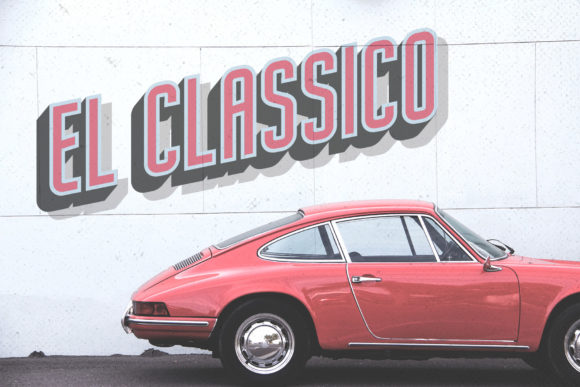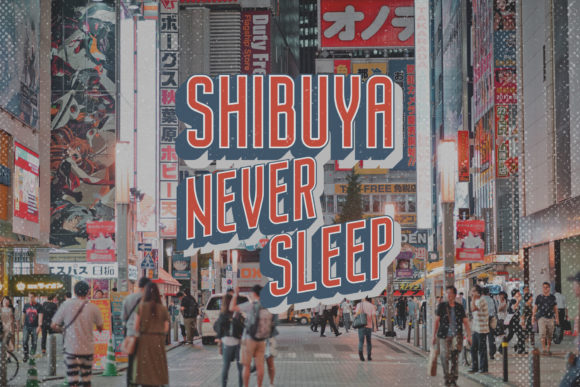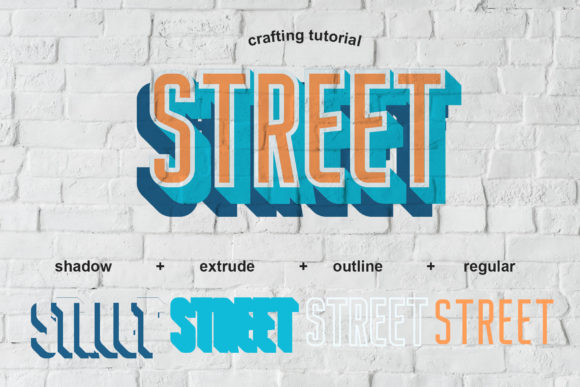
Introduction to Nordin Extrude Family Font
The Nordin Extrude is am amazing sans serif font family.
It includes 7 layerable variations for chromatic use It’s the result of an exploration of retro American and European bold sans serif lettering for advertising.
Nordin Extrude Family Font offers exceptional quality and versatility, making it a valuable addition to your design toolkit. Whether you’re creating for personal projects or commercial use, Nordin Extrude Family Font delivers professional results.